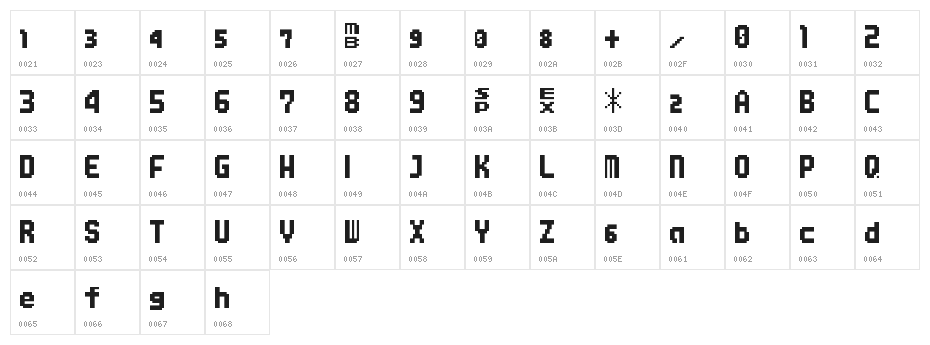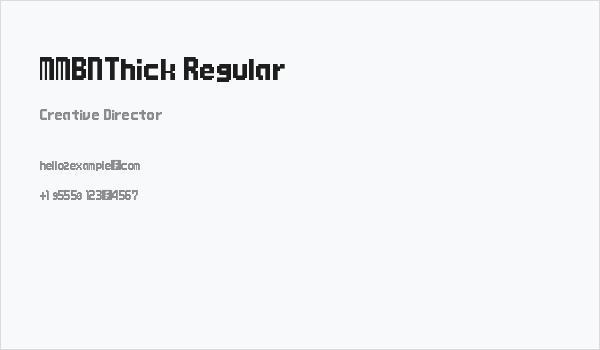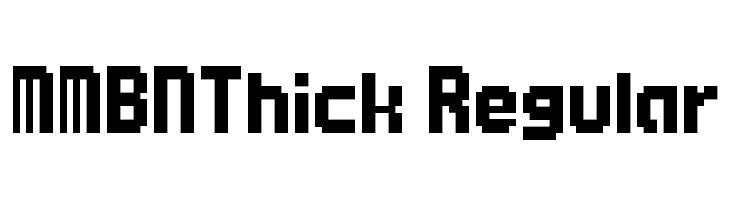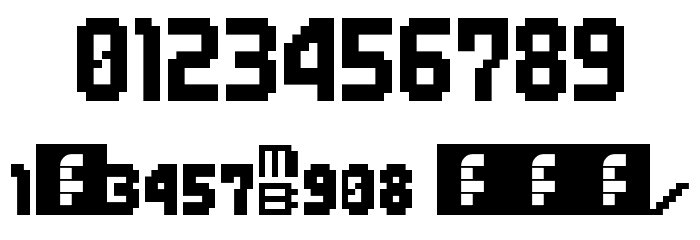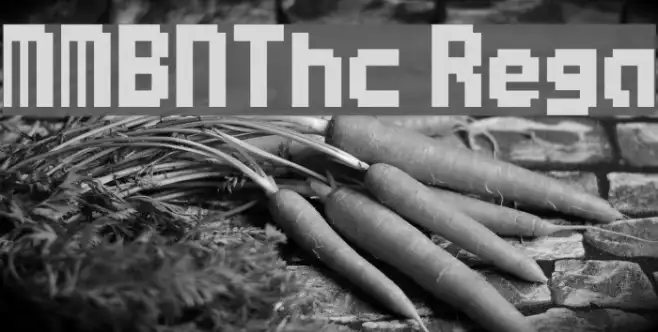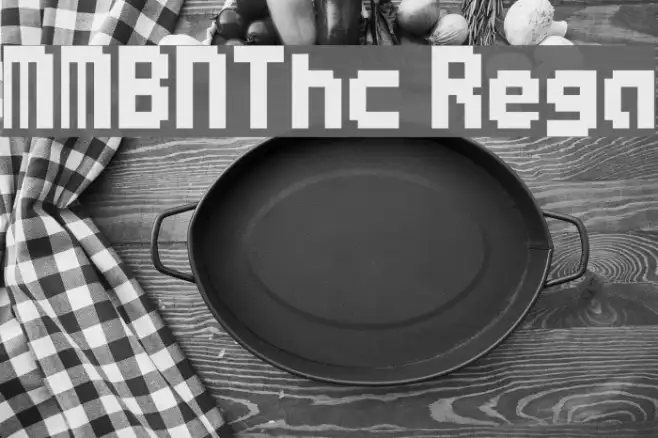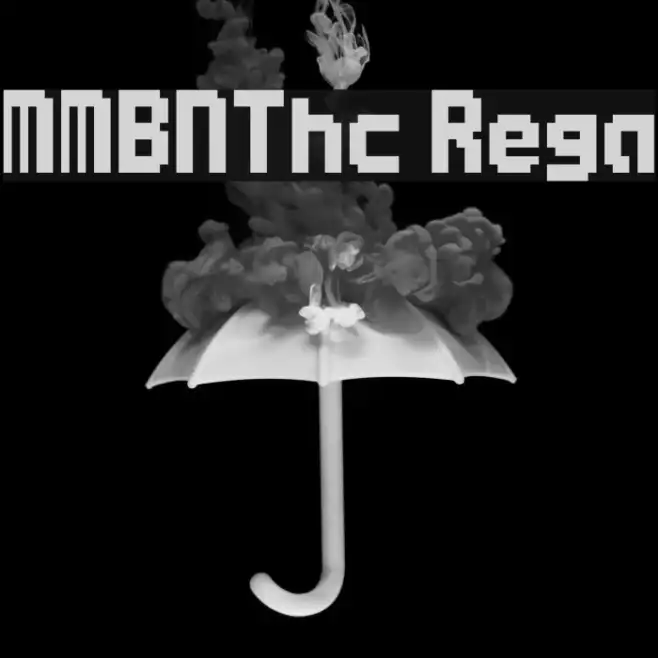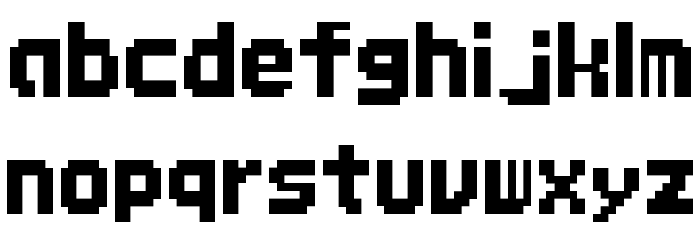
MMBNThick Regular Font
MMBNThick Regular Description
This font features a bold, pixelated style reminiscent of classic video game graphics. Each character is constructed with a blocky, grid-like appearance, giving it a distinctly retro and digital feel. The uppercase and lowercase letters maintain a consistent height and width, contributing to a uniform and structured look. Numbers and special characters follow the same design principles, ensuring a cohesive aesthetic throughout. The font's thick strokes and sharp angles make it highly legible, even at smaller sizes, while its unique style adds a playful and nostalgic touch to any design.
| Overall Style | Retro, Digital |
| Proposed Projects | Ideal for video game designs, retro-themed posters, digital art, and any project seeking a nostalgic, pixelated look. |